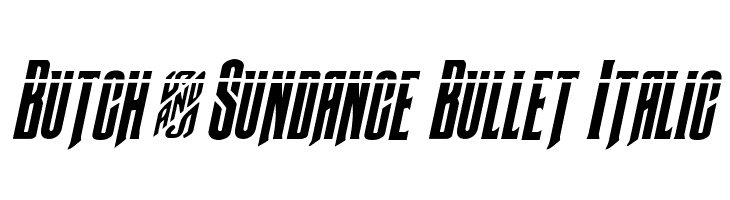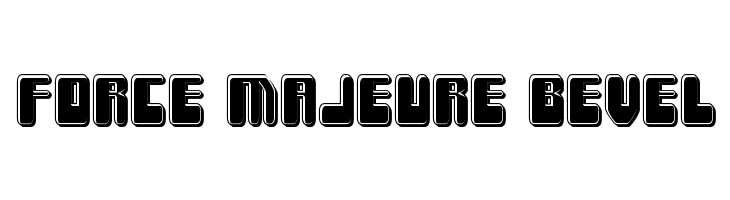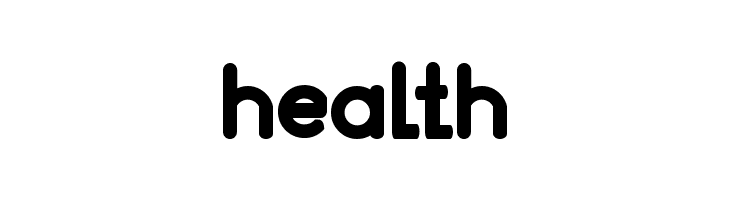
A bold, italic font with sharp angles and exaggerated serifs, exuding energy and motion.
A dynamic handwritten font with fluid, connected strokes and a natural flow.
An ornate and decorative font with intricate details and flourishes.
A playful, dinosaur-themed font with bold, whimsical characters.
A bold, condensed, and italicized font with sharp, angular characters.
A playful, bold font with rounded edges and even spacing, ideal for friendly designs.
A bold, geometric font with a beveled, three-dimensional effect.